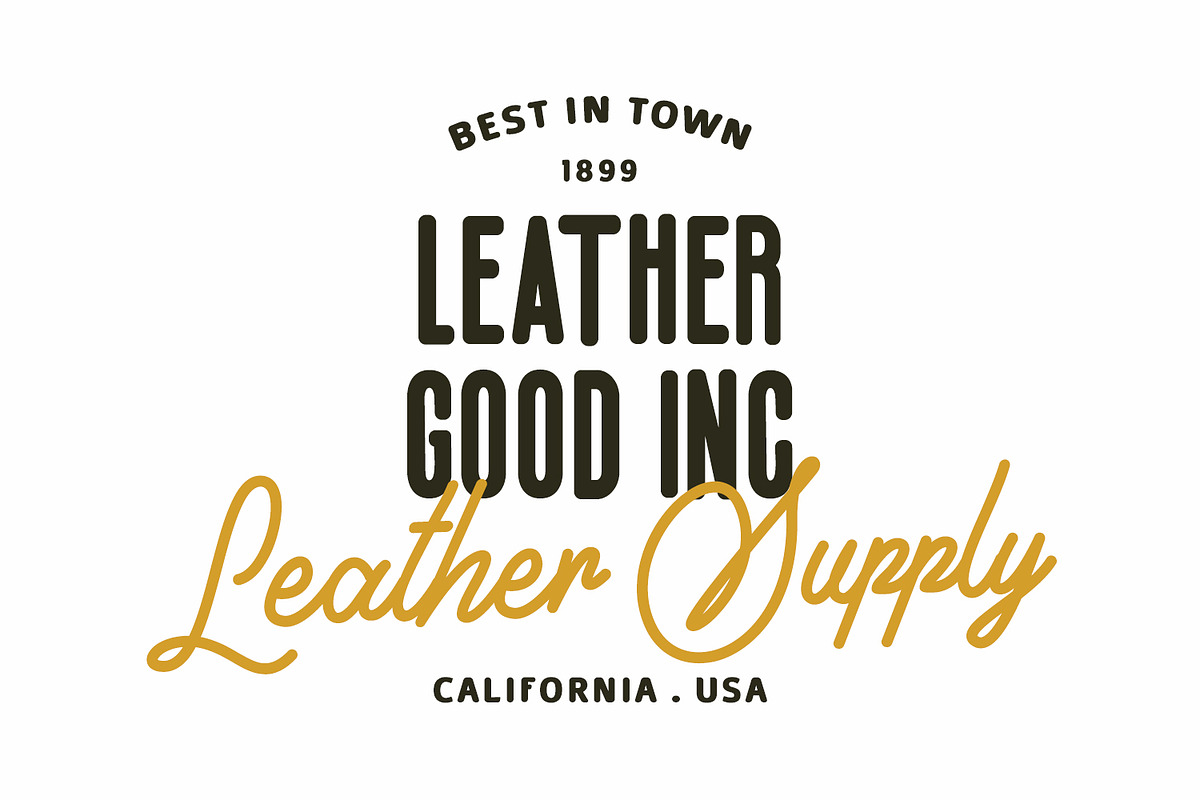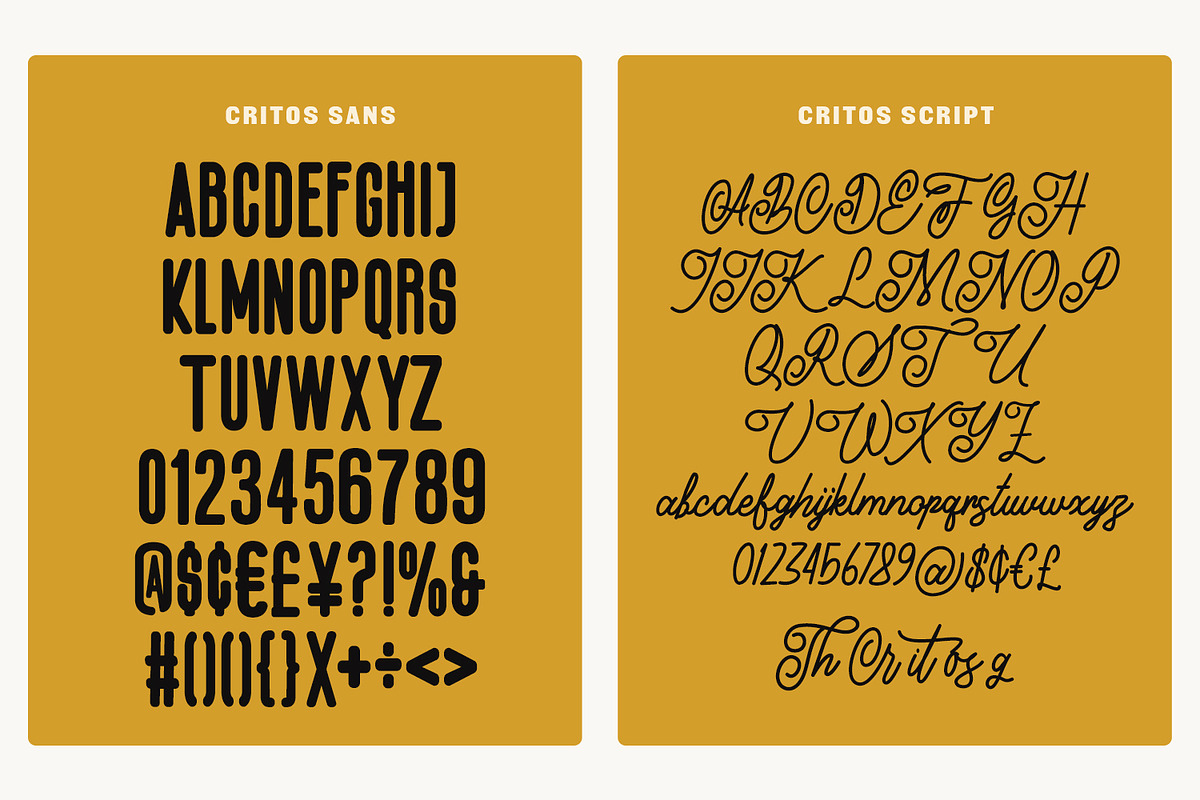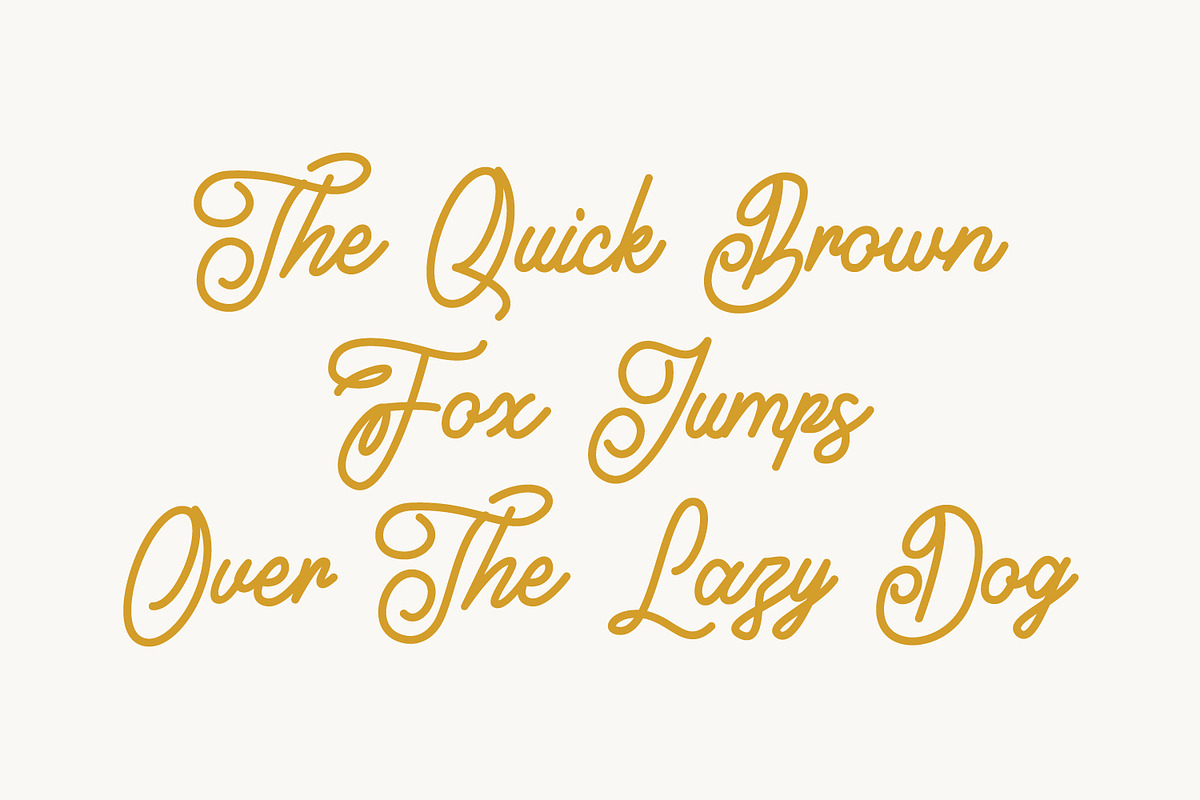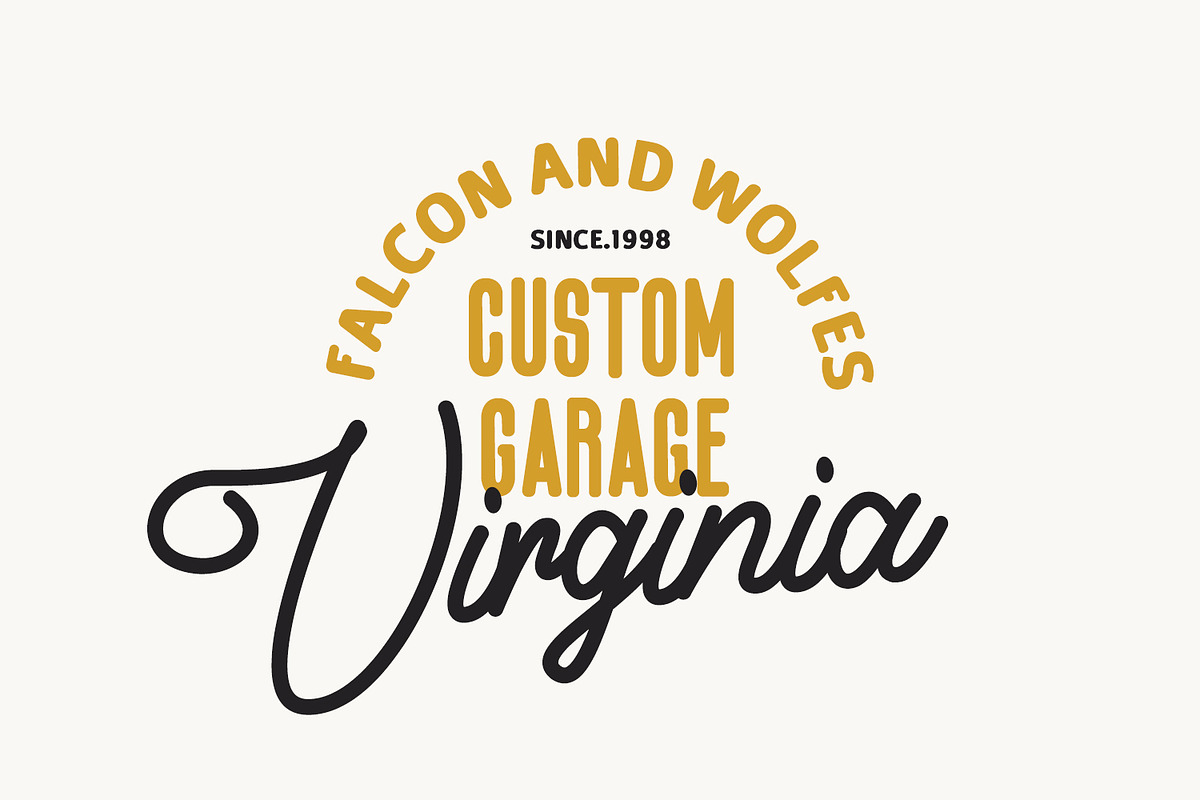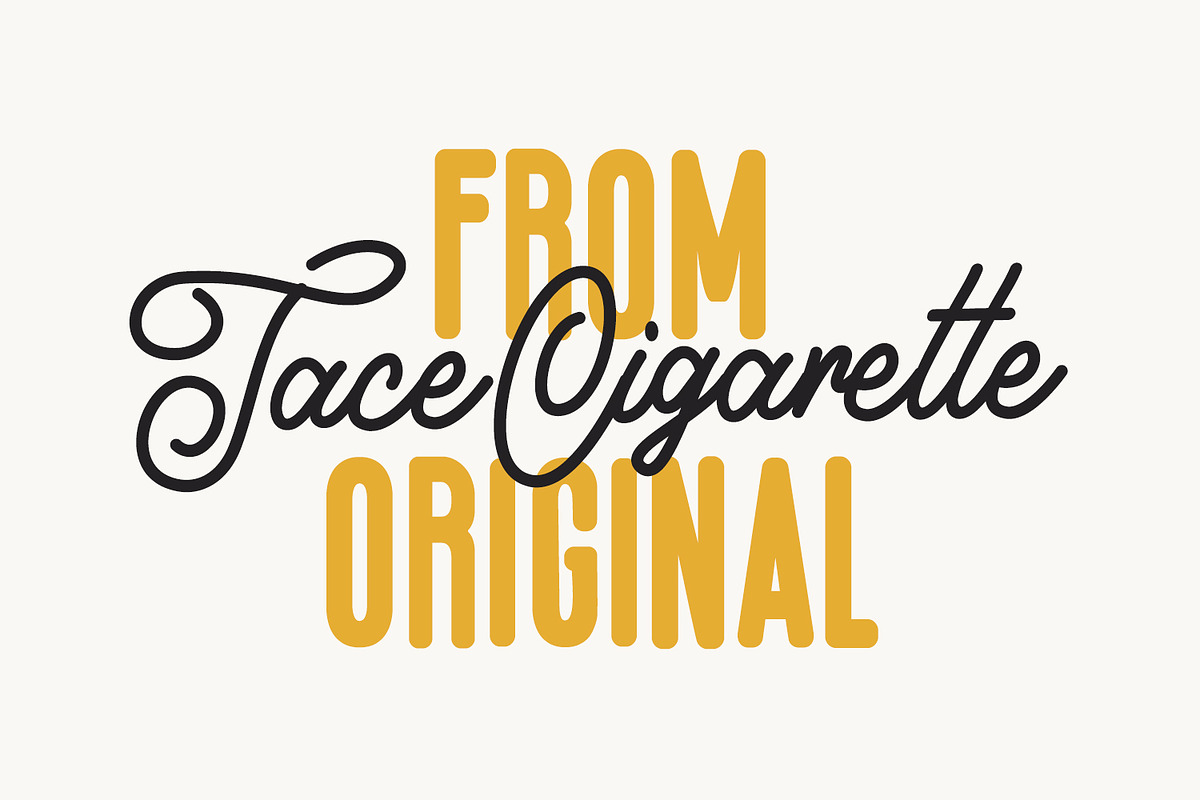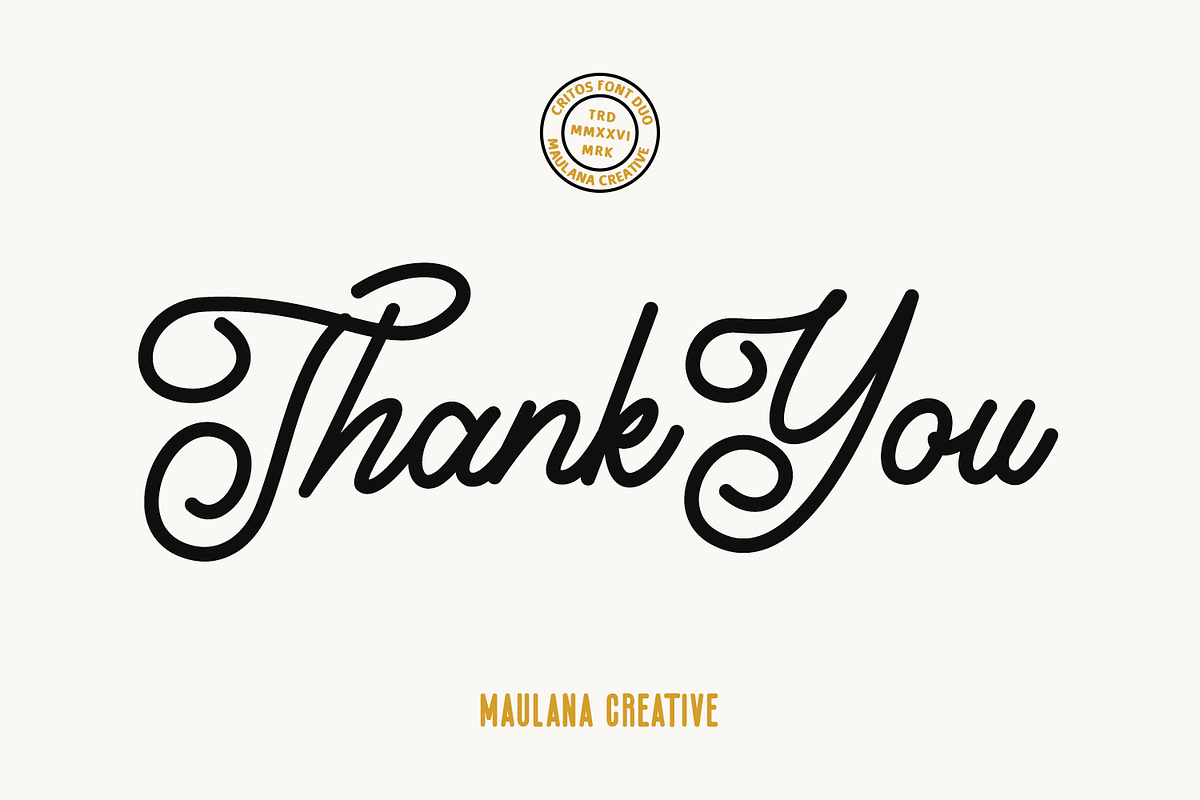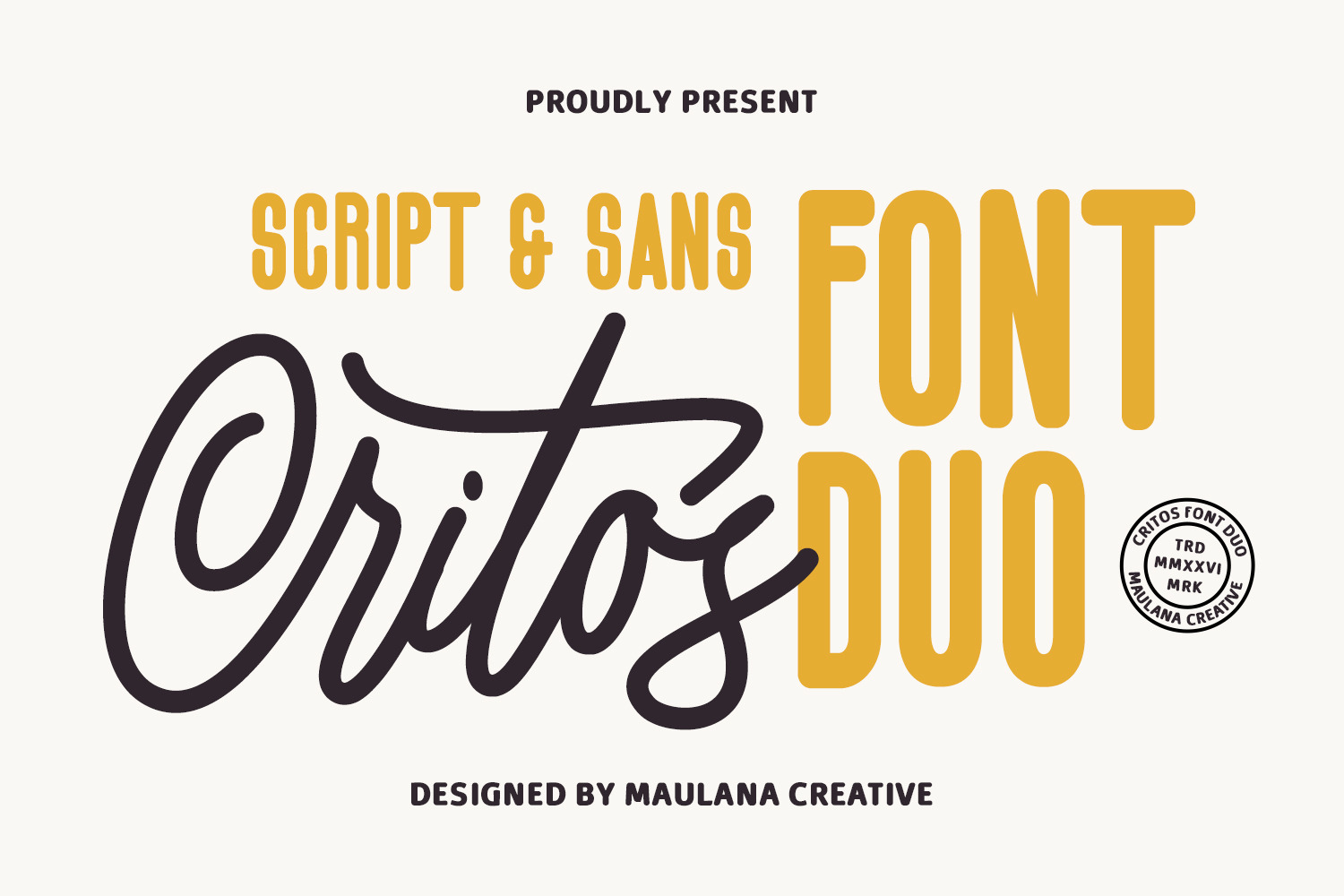
Critos Font Duo Modern Vintage Font
Elevate your design projects with Critos, a perfectly paired font duo that blends timeless vintage charm with modern sophistication. This collection features a flowing, elegant monoline script and a bold, condensed sans-serif, designed to work in seamless harmony.
Critos is engineered for versatility, making it the ideal choice for branding, logo design, vintage-style, and social media quotes. Whether you are aiming for a rugged heritage look or a clean, upscale aesthetic, this duo provides the balance you need. With a full set of characters, numerals, and punctuation, Critos is as functional as it is beautiful.
- Script include lowercase and uppercase
- Sans include uppercase
- Script and sans include numbers, punctuation, and symbols
- Script include ligature and alternates for a natural handwriting flow